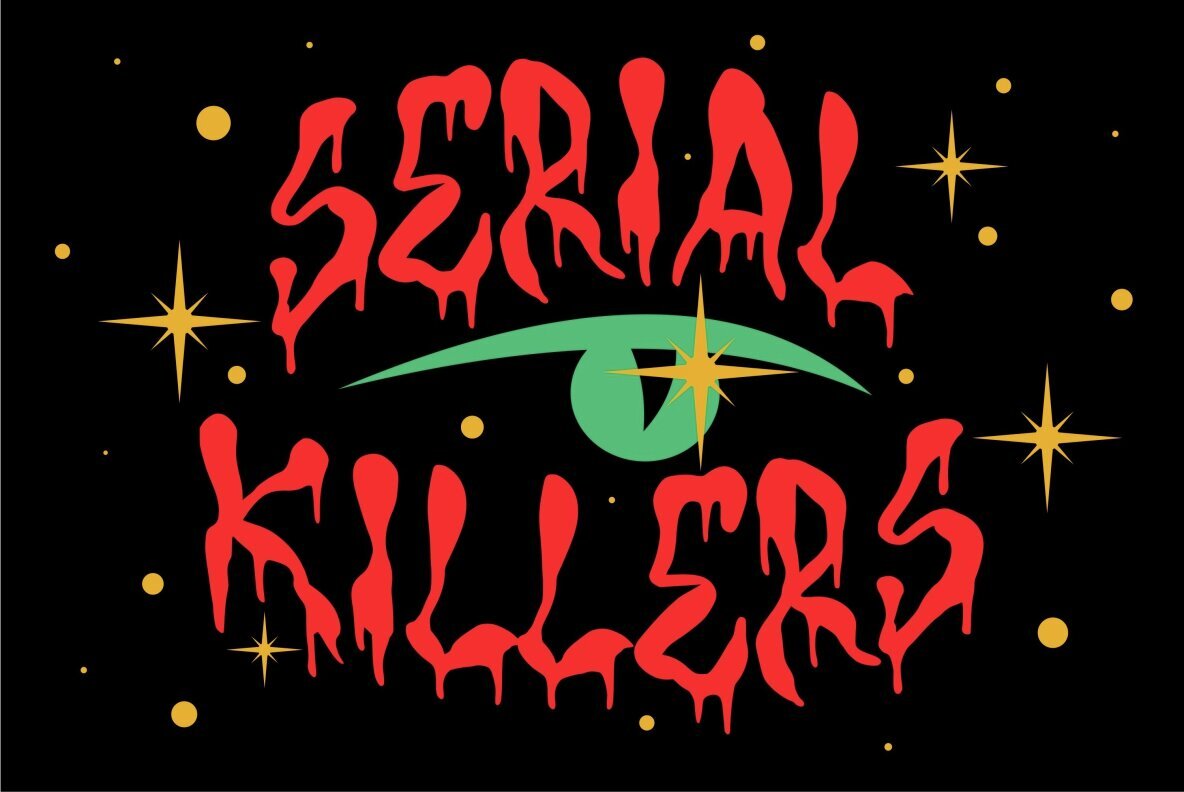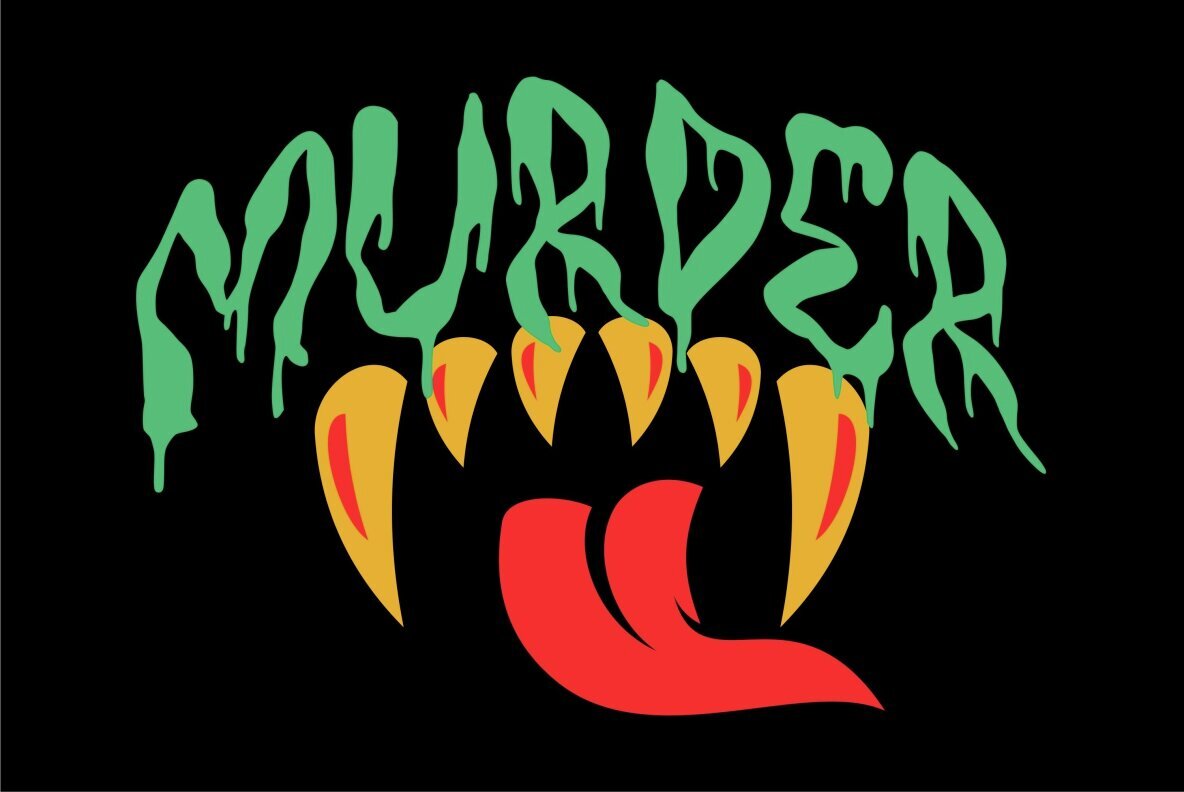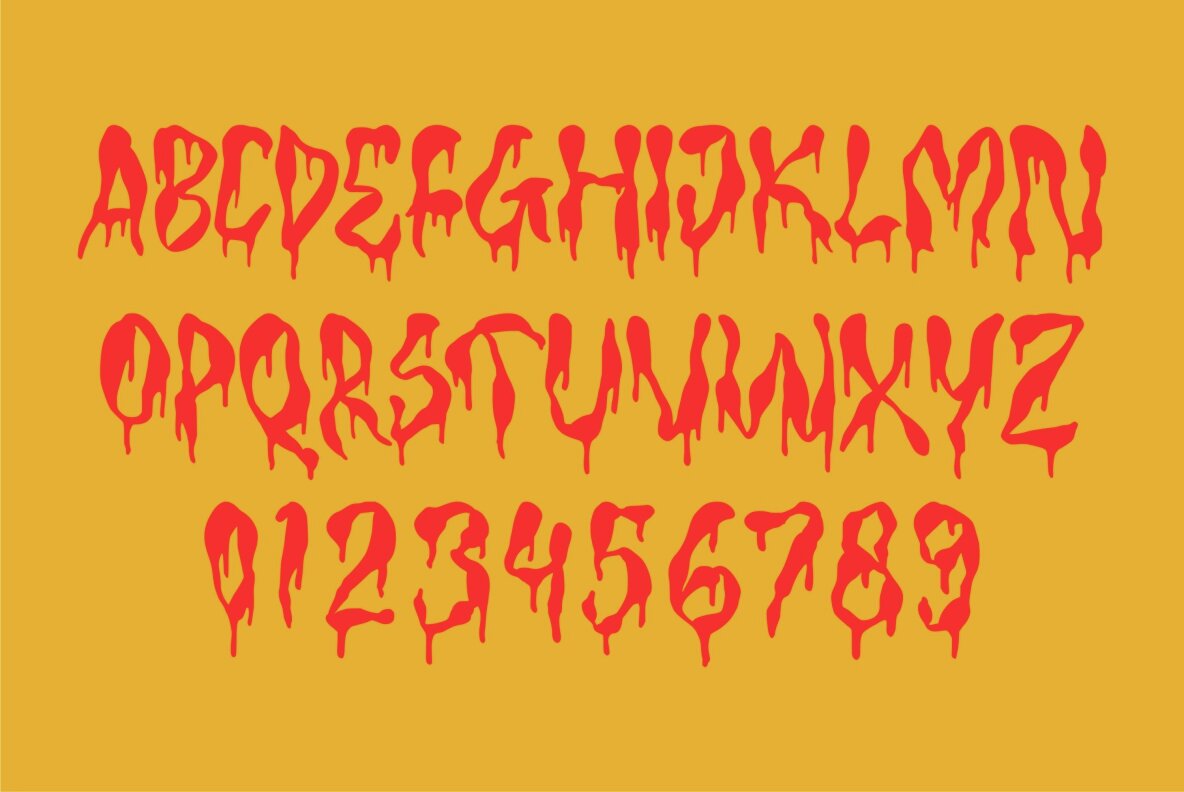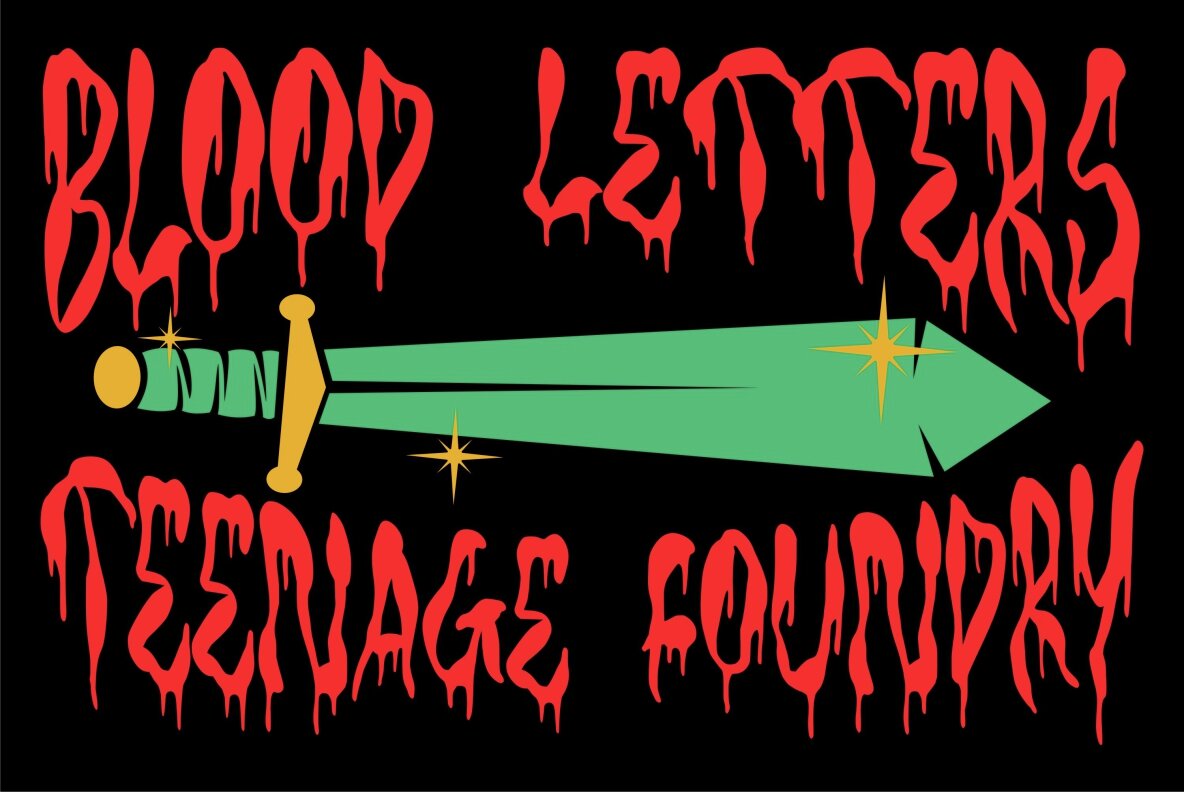
TF Bleedwax Font
TF Bleedwax Regular
TF Bleedwax Font - an eerie and spine-chilling typeface perfectly suited for Halloween-themed designs. This font exudes a horror style, created specifically to send shivers down your spine. Each letter is meticulously crafted to resemble dripping blood, giving your designs a blood-curdling and macabre feel. With its gory and unsettling appearance, "TF Bleedwax" font is sure to add a terrifying touch to any Halloween project, horror movie poster, haunted house flyer, or spooky party invitation. Let this font unleash a wave of fear and make your designs stand out in the dark and creepy night.